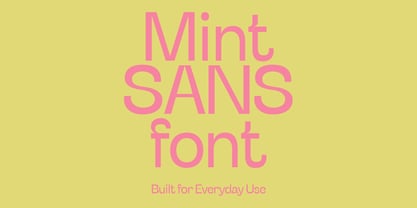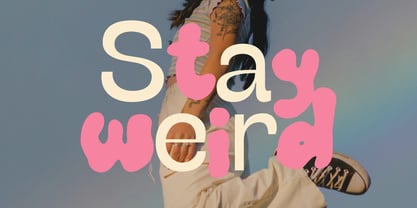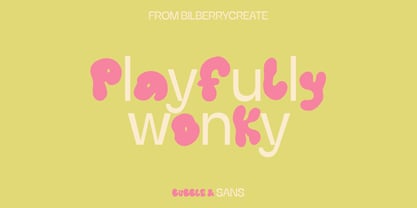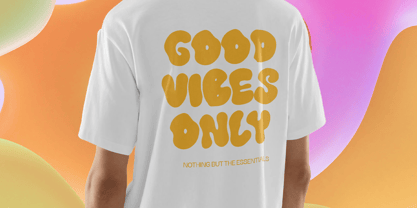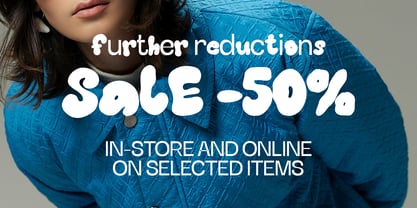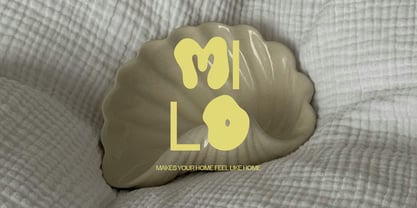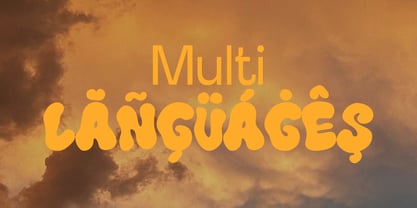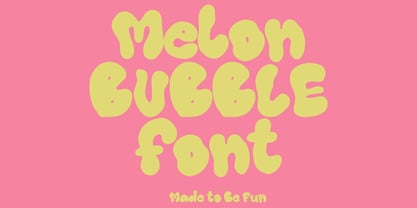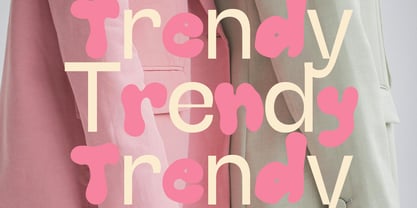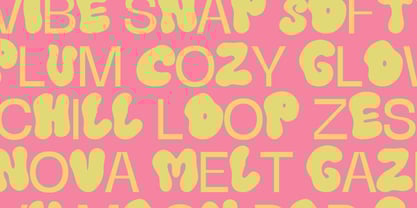
Melon Mint
The Melon Mint Font Family was designed by Daria Cherniackova and published by Bilberry Create. Melon Mint contains 2 styles and family package options. More about this family
Melon & Mint – A Fresh Font Duo.
Meet Melon & Mint, a playful and refreshing font combo designed to make your designs pop with personality.
Melon is a juicy, bubbly display font — bold, round, and full of charm. Perfect for fun logos, packaging, quotes, or anything that needs a sweet and friendly vibe.
Mint is a clean, modern sans-serif that brings balance and clarity to the pair. Use it for taglines, body text, captions, or anywhere you need a fresh contrast to the boldness of Melon.
• All caps
• Multilingual support